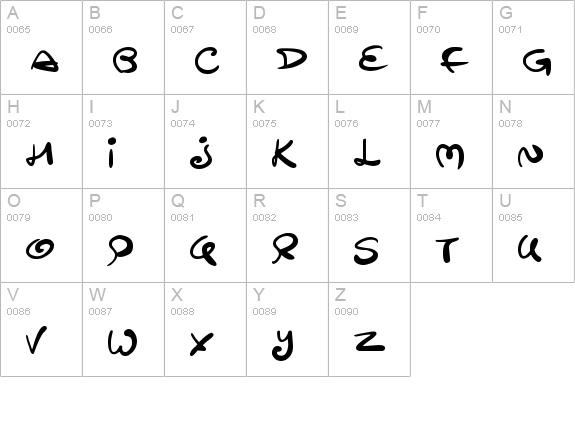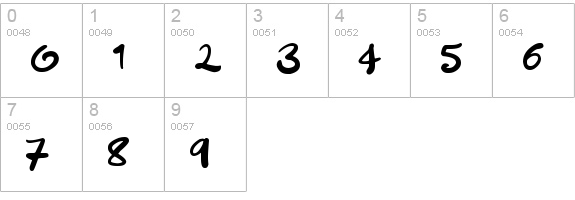
Swirltastic Font Details
Swirltastic is a free for personal use font in the Script > Handwritten category, designed by Darrell Flood. It has been downloaded 30 times and is available for Windows, Mac and Linux.
Swirltastic font is a whimsical and elegant typeface that adds a touch of charm and sophistication to any design project. With its intricate swirls and delicate curves, Swirltastic brings a sense of playfulness and creativity to your text. This font is perfect for invitations, greeting cards, branding, and more.